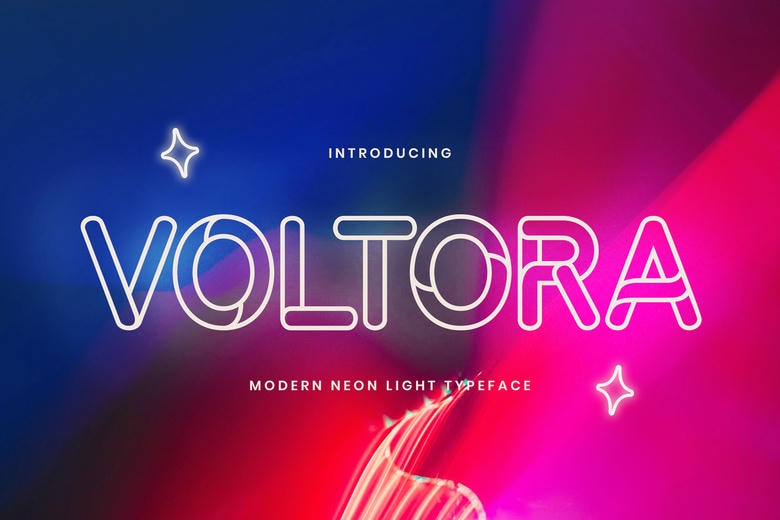
Voltora Font
Voltora is a contemporary neon light typeface that would add a bold, vibrant, and futuristic feel to your designs. With round edged lines and radiating letterforms, Voltora embodies the style of modern neon signage in a sleek and stylish manner.